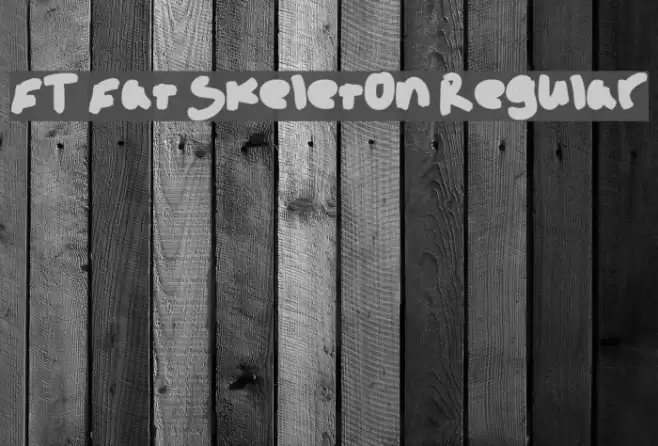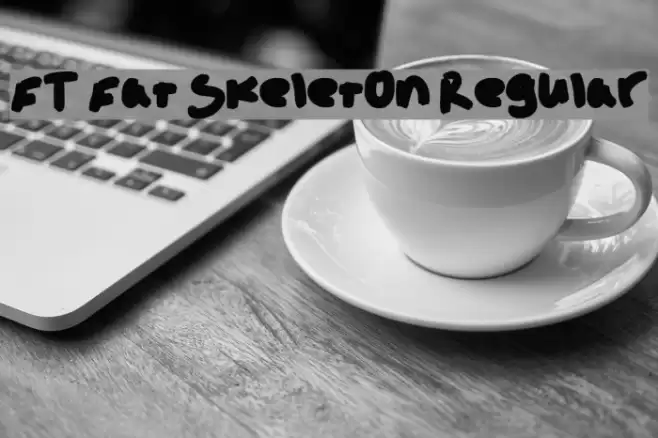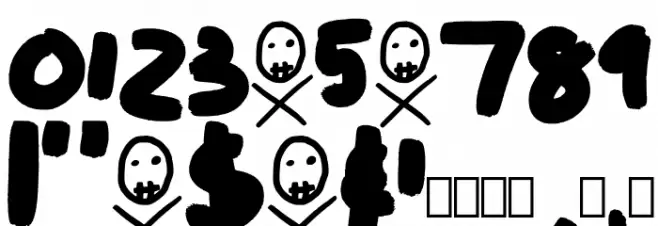
FT Fat Skeleton Regular Font
FT Fat Skeleton Regular Description
This font features a bold and playful design, characterized by its thick, rounded strokes and irregular shapes. The letters have a hand-drawn, whimsical appearance, with a slightly uneven baseline that adds to its casual charm. The uppercase and lowercase letters maintain a consistent style, while the numbers and special characters incorporate unique elements, such as skull motifs, enhancing its quirky and fun aesthetic. This font is ideal for projects that require a bold and eye-catching display, offering a sense of creativity and individuality.
A bold, playful font with thick, rounded strokes and a whimsical, hand-drawn style from Uncategorized fonts.
- Proposed Projects: Perfect for children's book covers, playful posters, creative branding, and Halloween-themed designs.
- Overall Style: Playful, Quirky